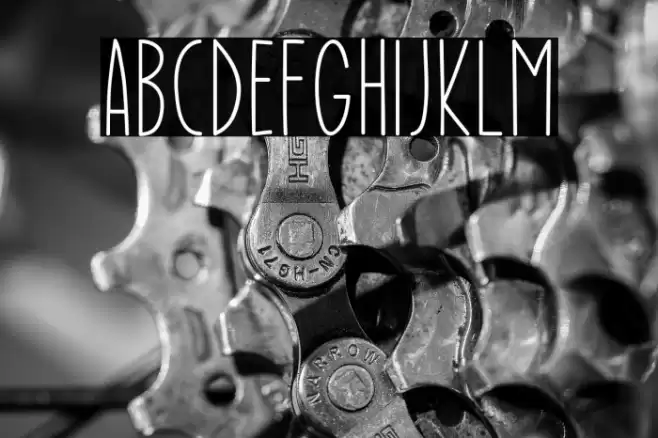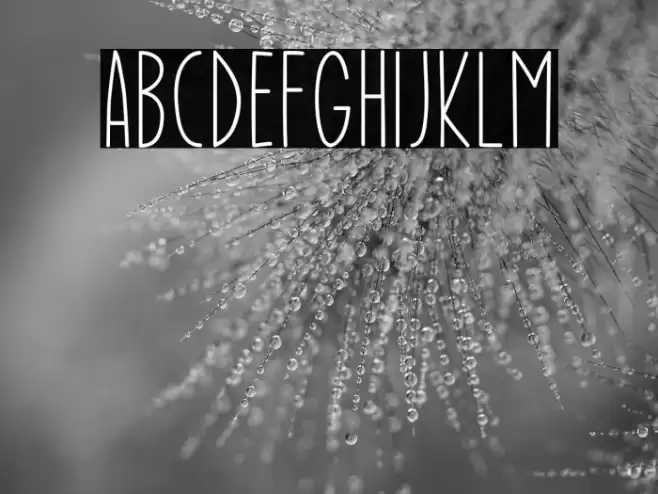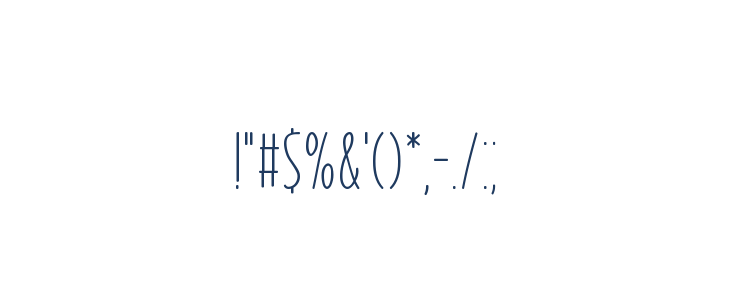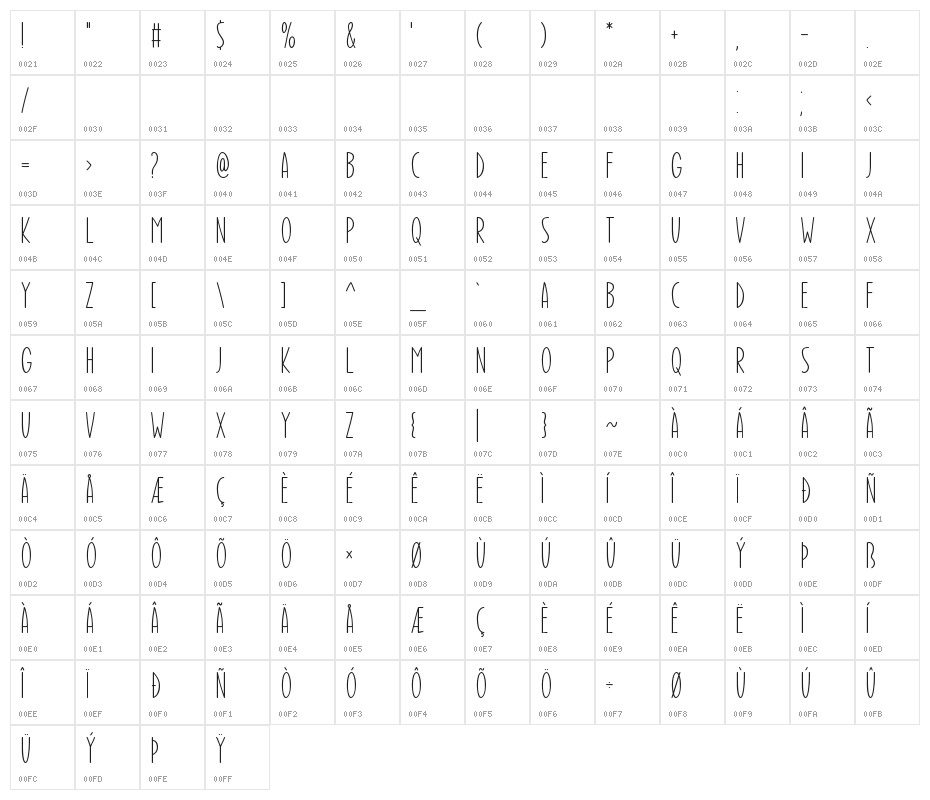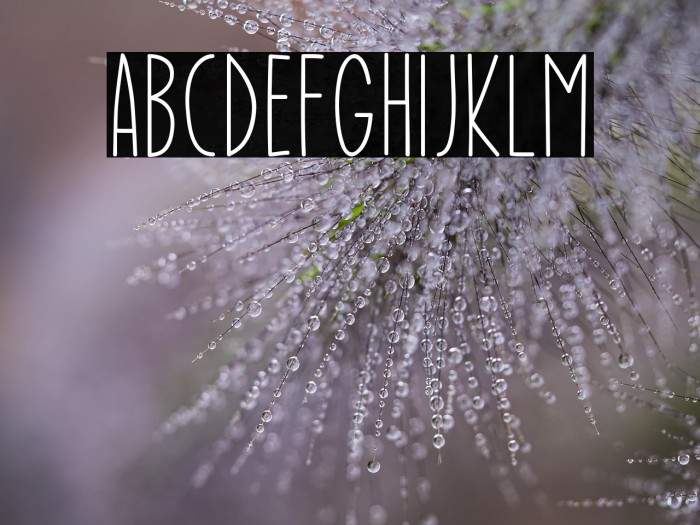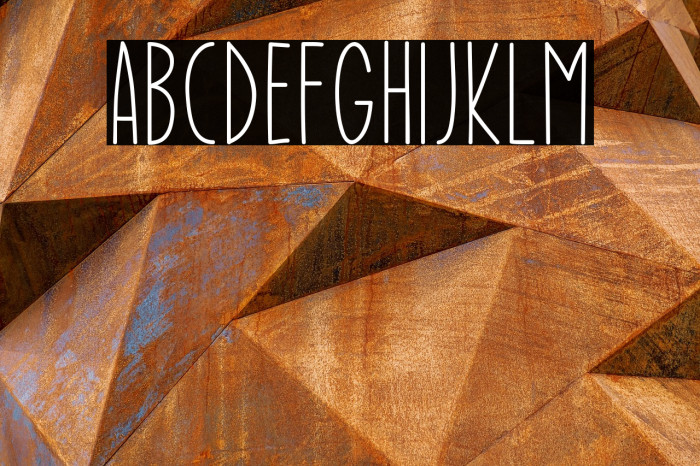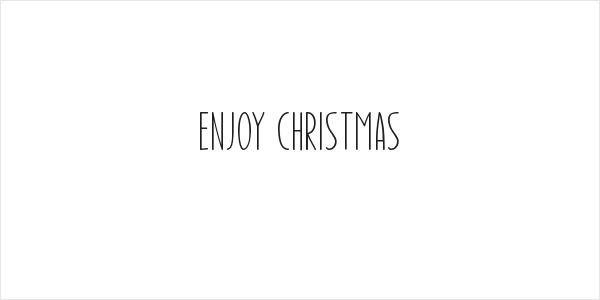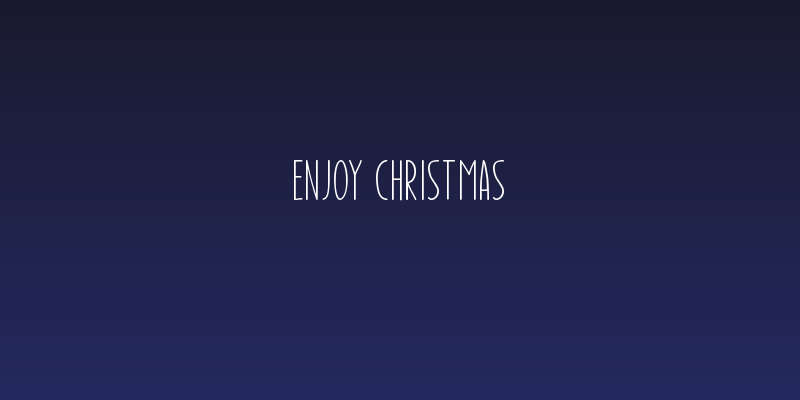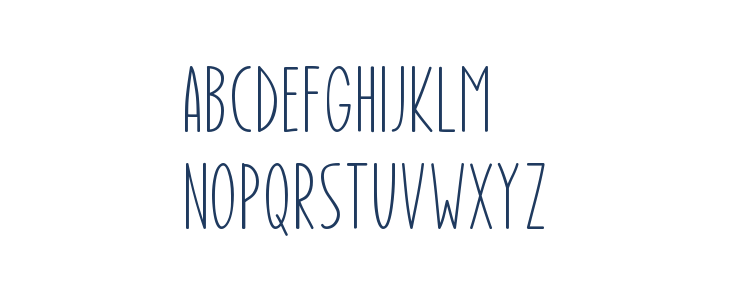
Enjoy Christmas Font
Enjoy Christmas Description
This font features a tall and slender design with clean, straight lines and minimal curves. The uppercase letters are elongated, giving a modern and elegant appearance. The lowercase letters maintain a consistent height, complementing the uppercase with a slightly playful touch. The numerals are uniform and align well with the overall style, while the special characters are distinct and easily recognizable. The font's simplicity and clarity make it versatile for various design applications.
A tall, slender, and modern font with clean lines and minimal curves from Uncategorized fonts.